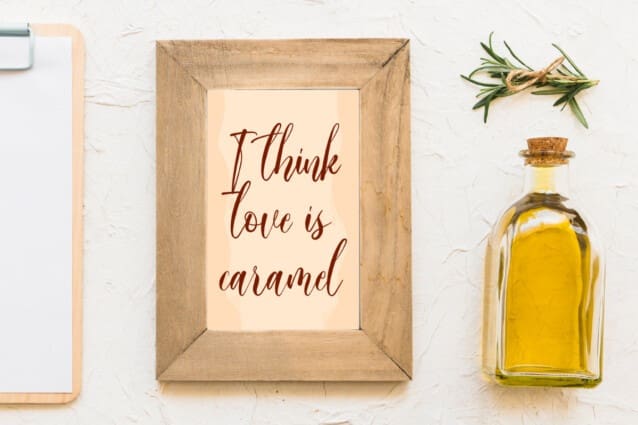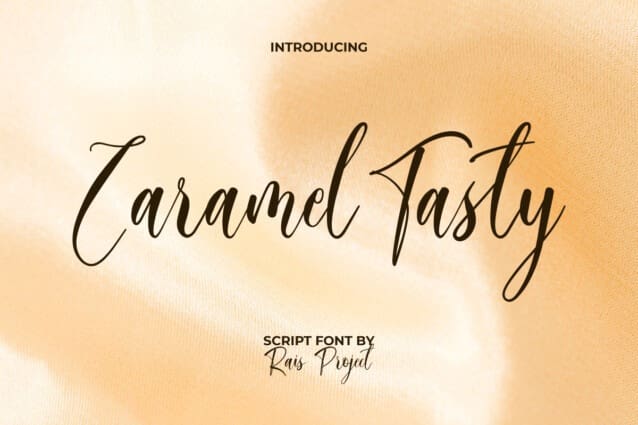
Caramel Tasty Font
Caramel Tasty Font, is a beautifully elegant calligraphic script font by RaisProject with stunning style. This font has a lovely fresh look that will be timeless in your design. It will be good for many designs, such as brand image, cover, custom design, invitation, label, product packaging, quote, stationery, sticker, web, and more!